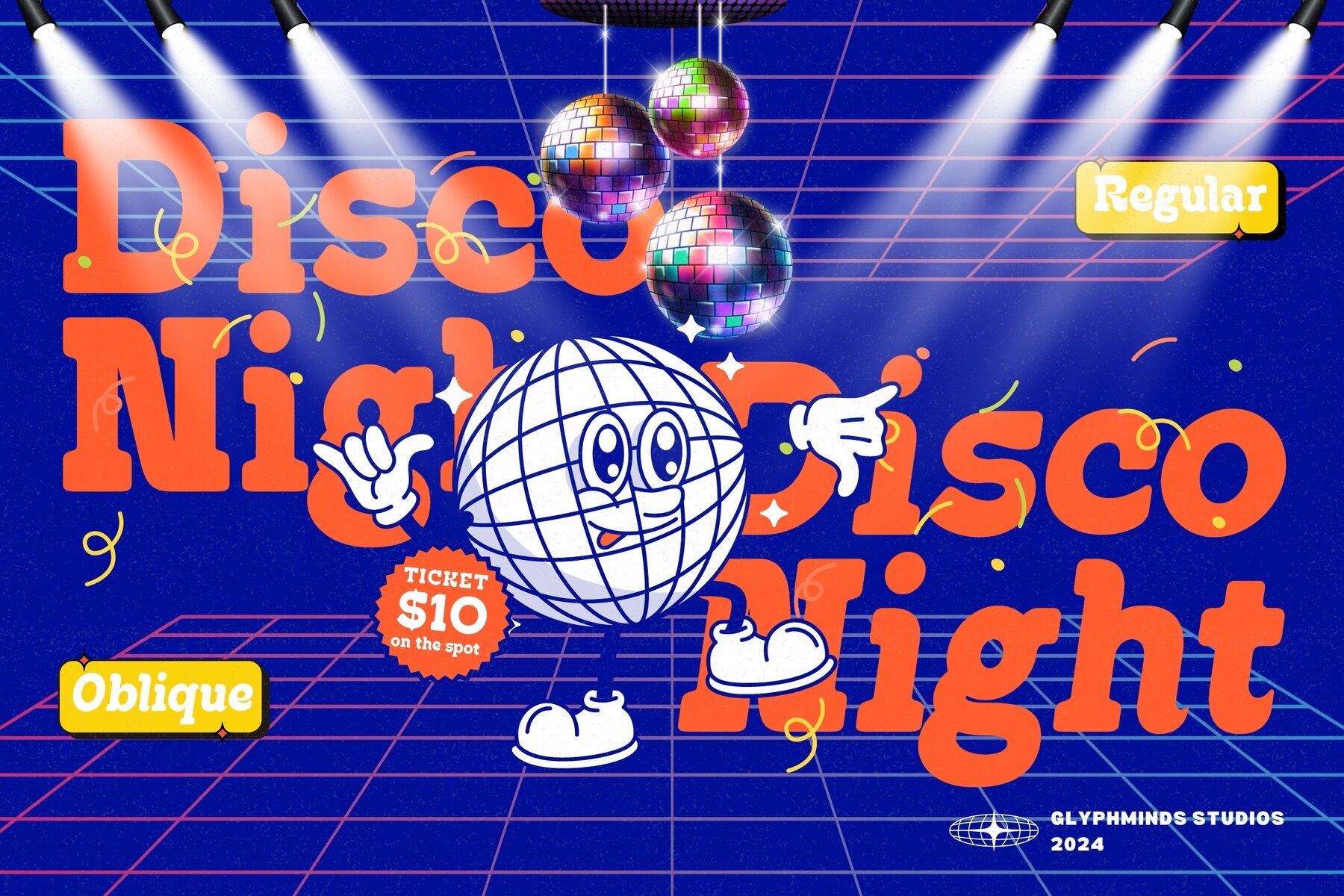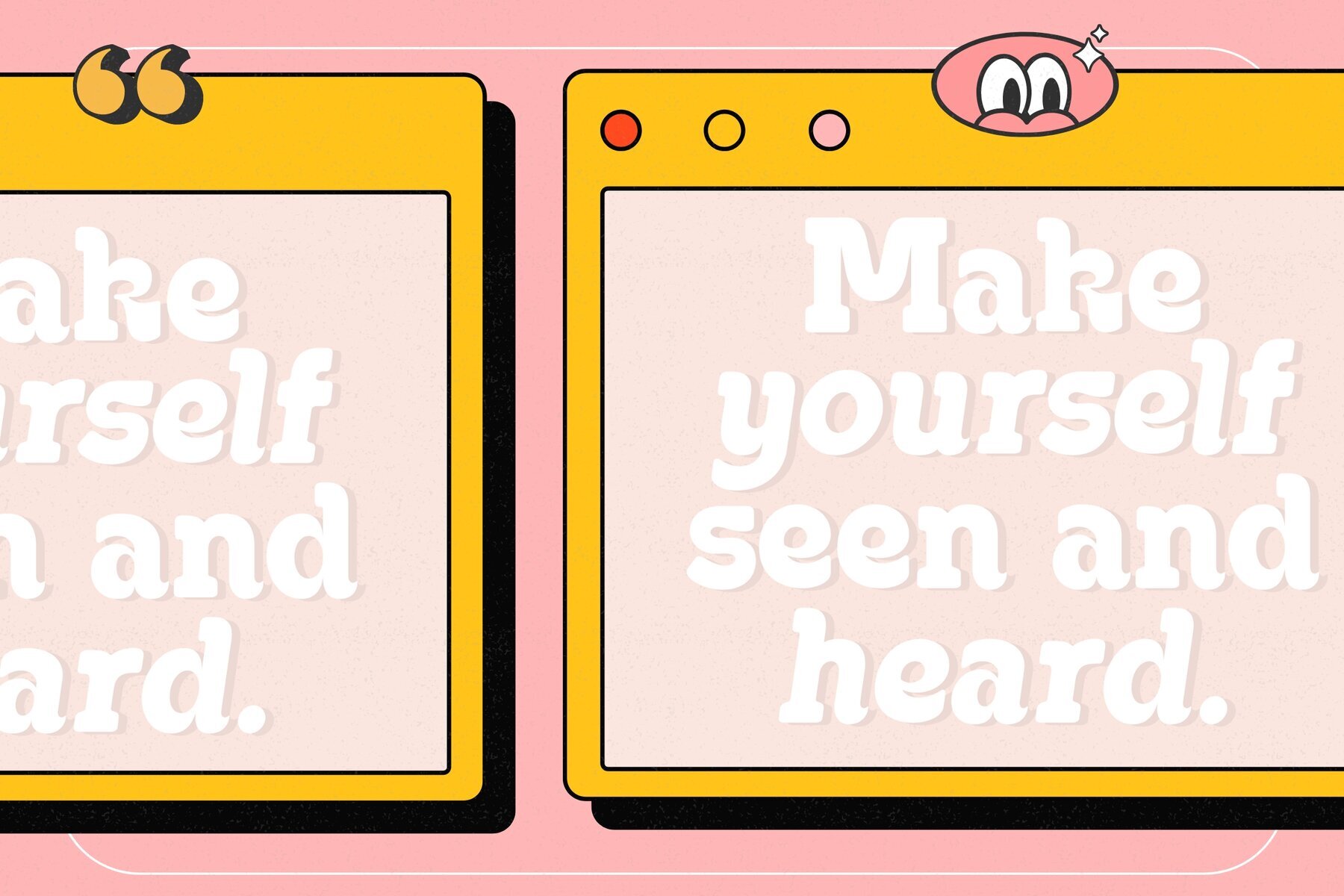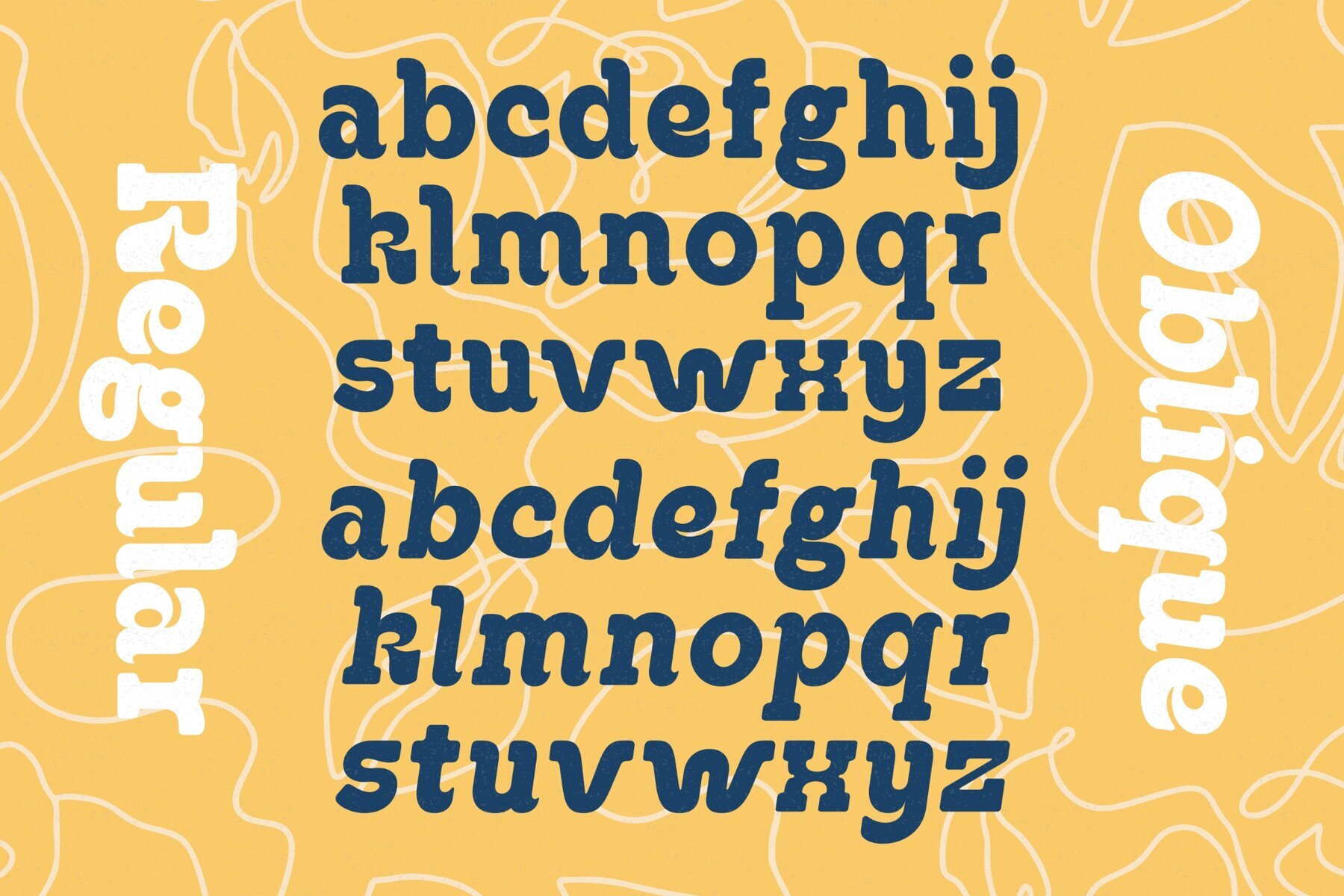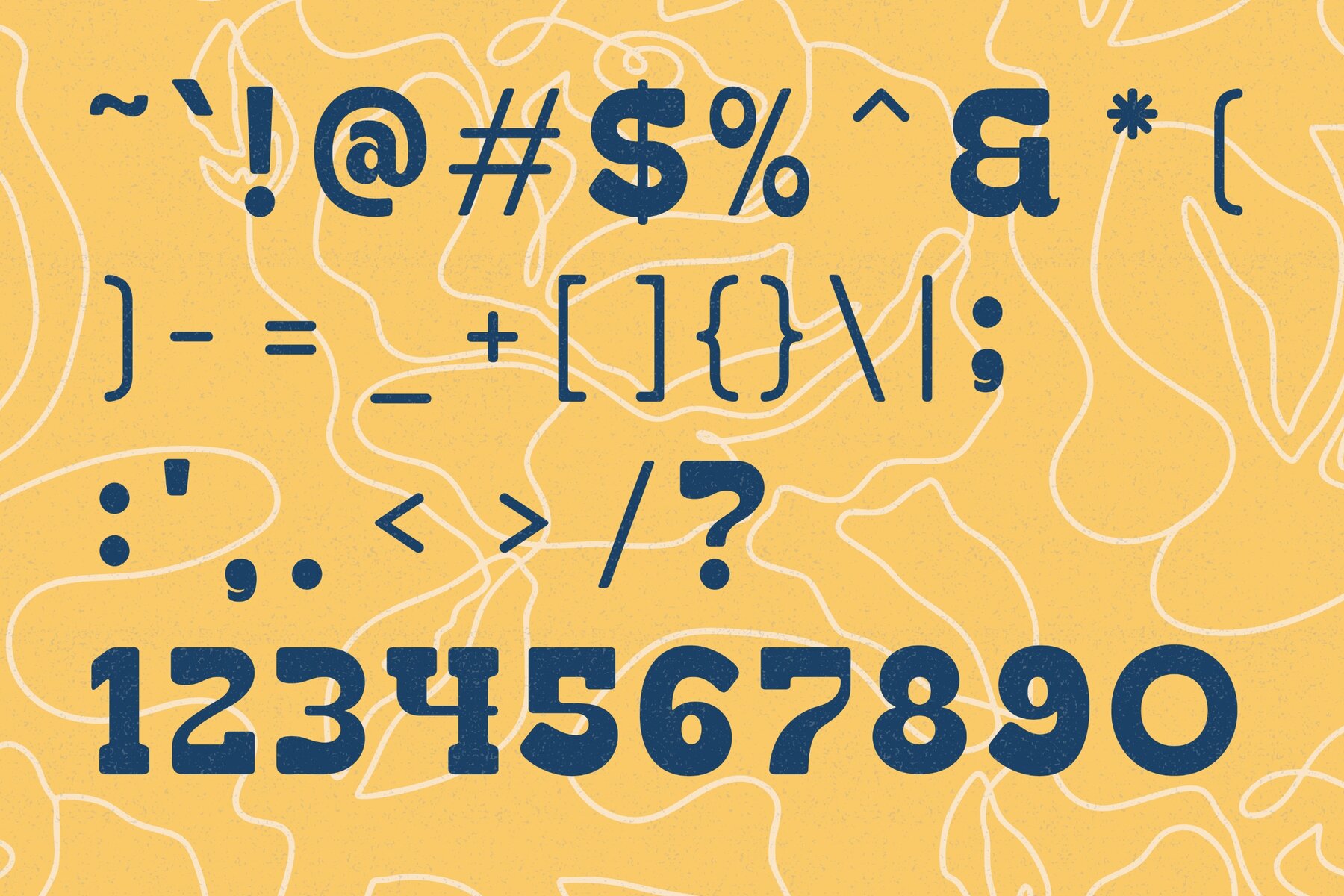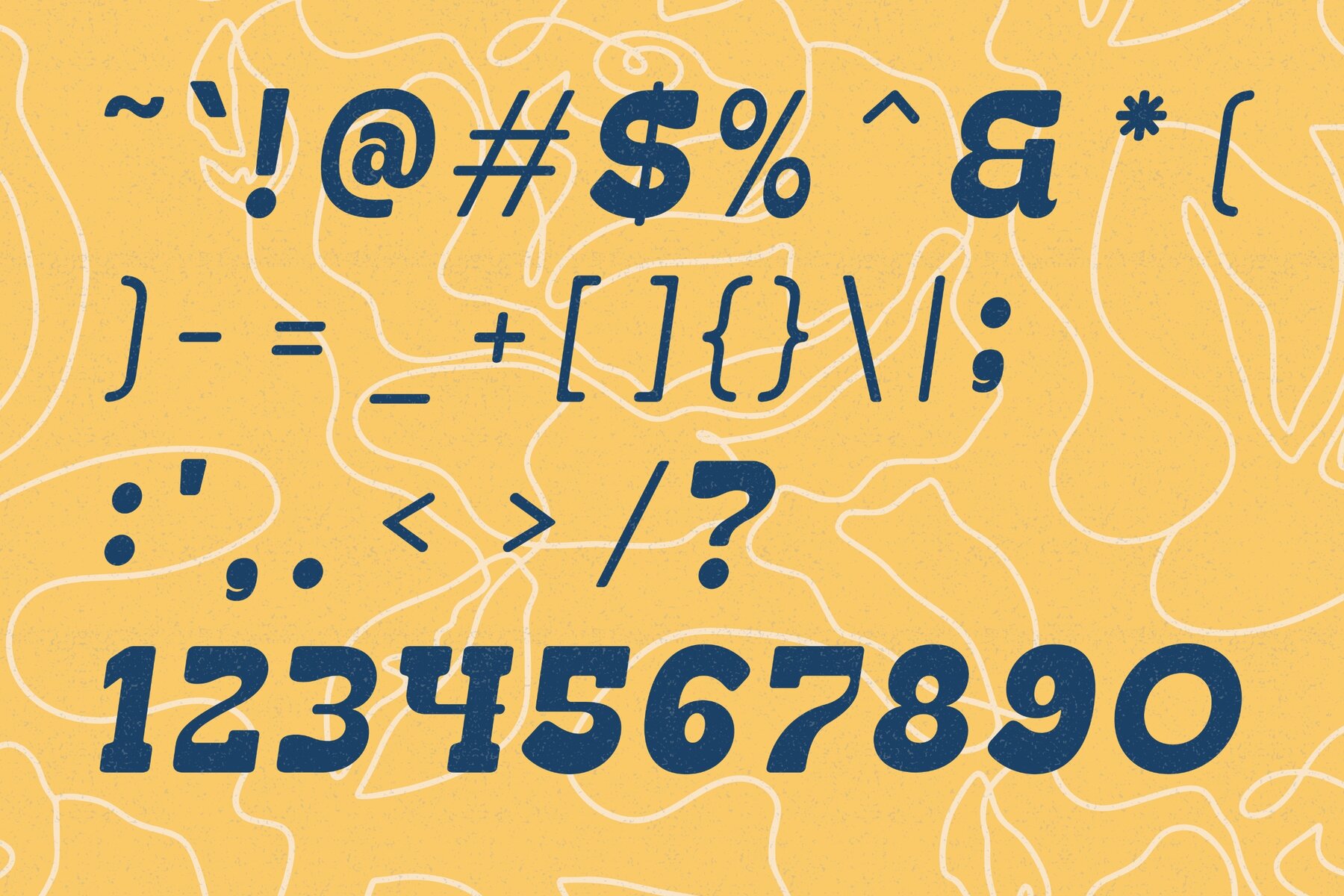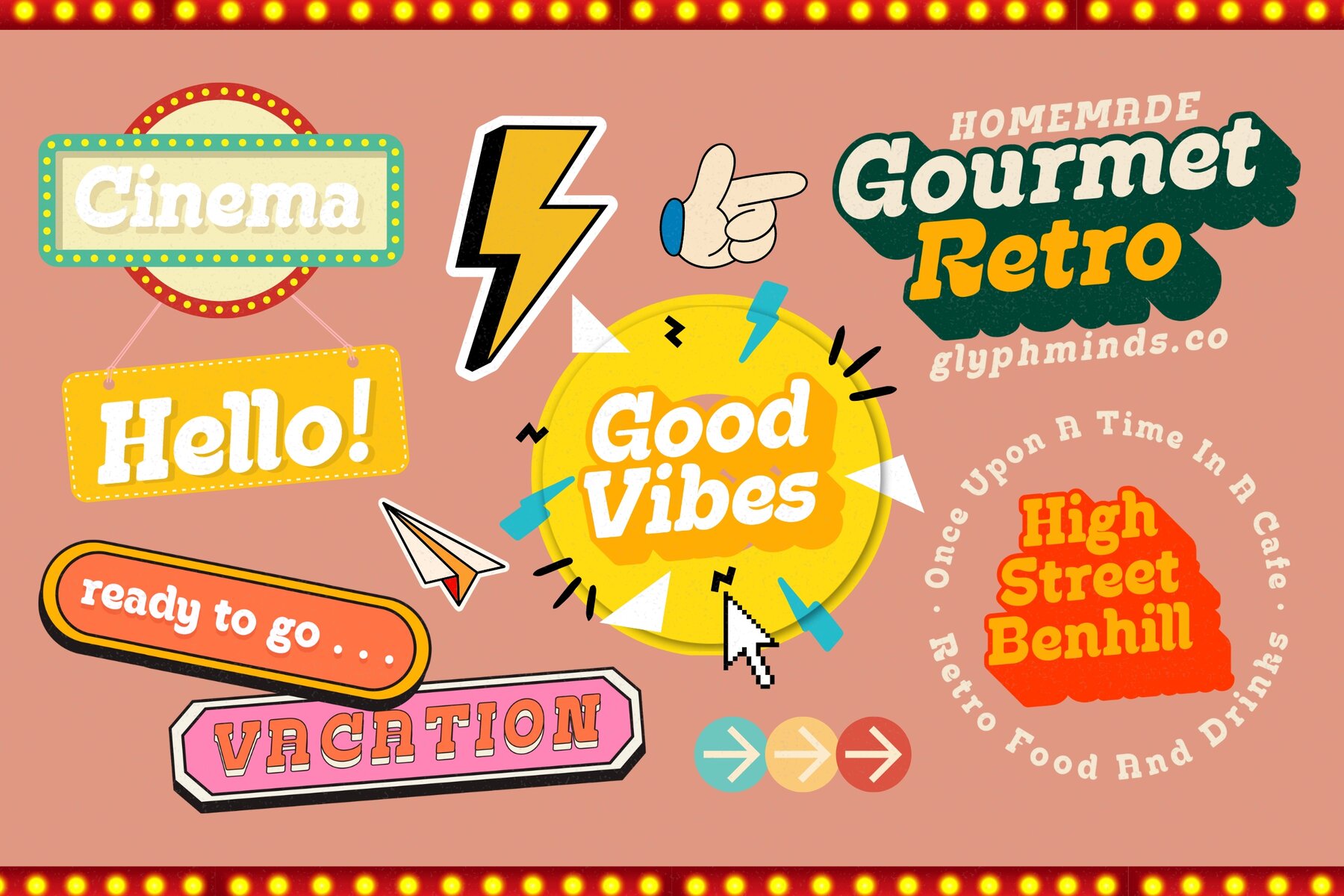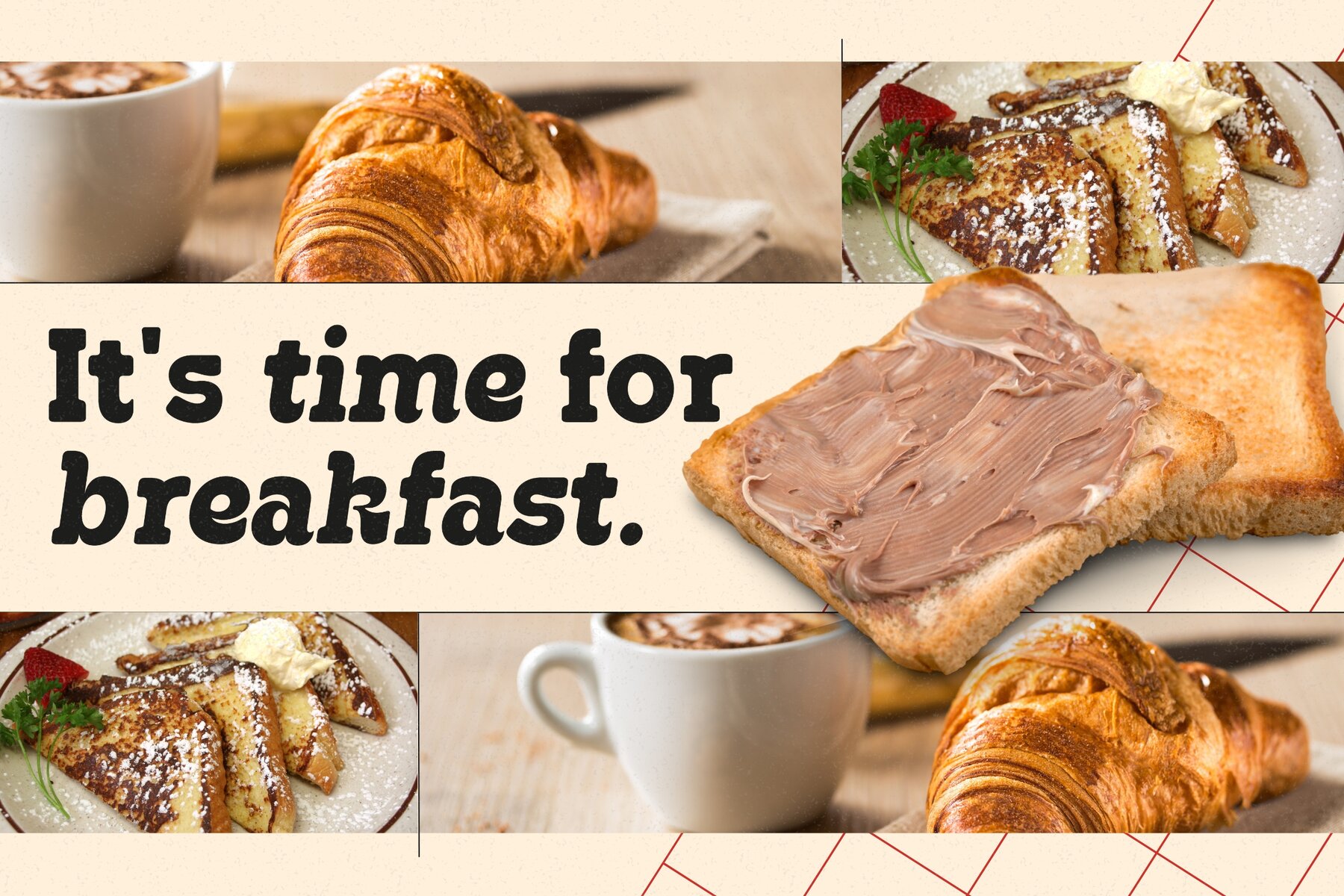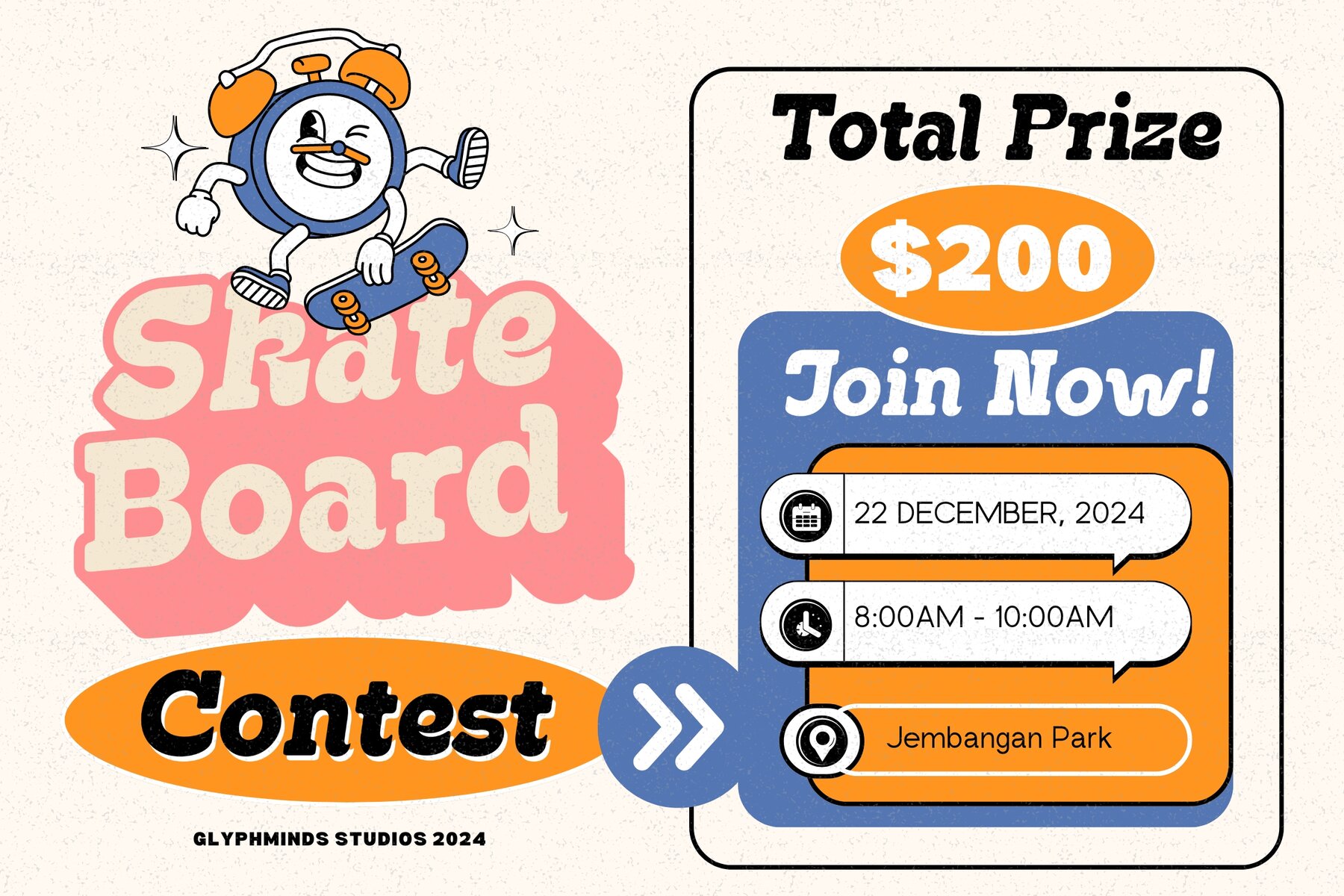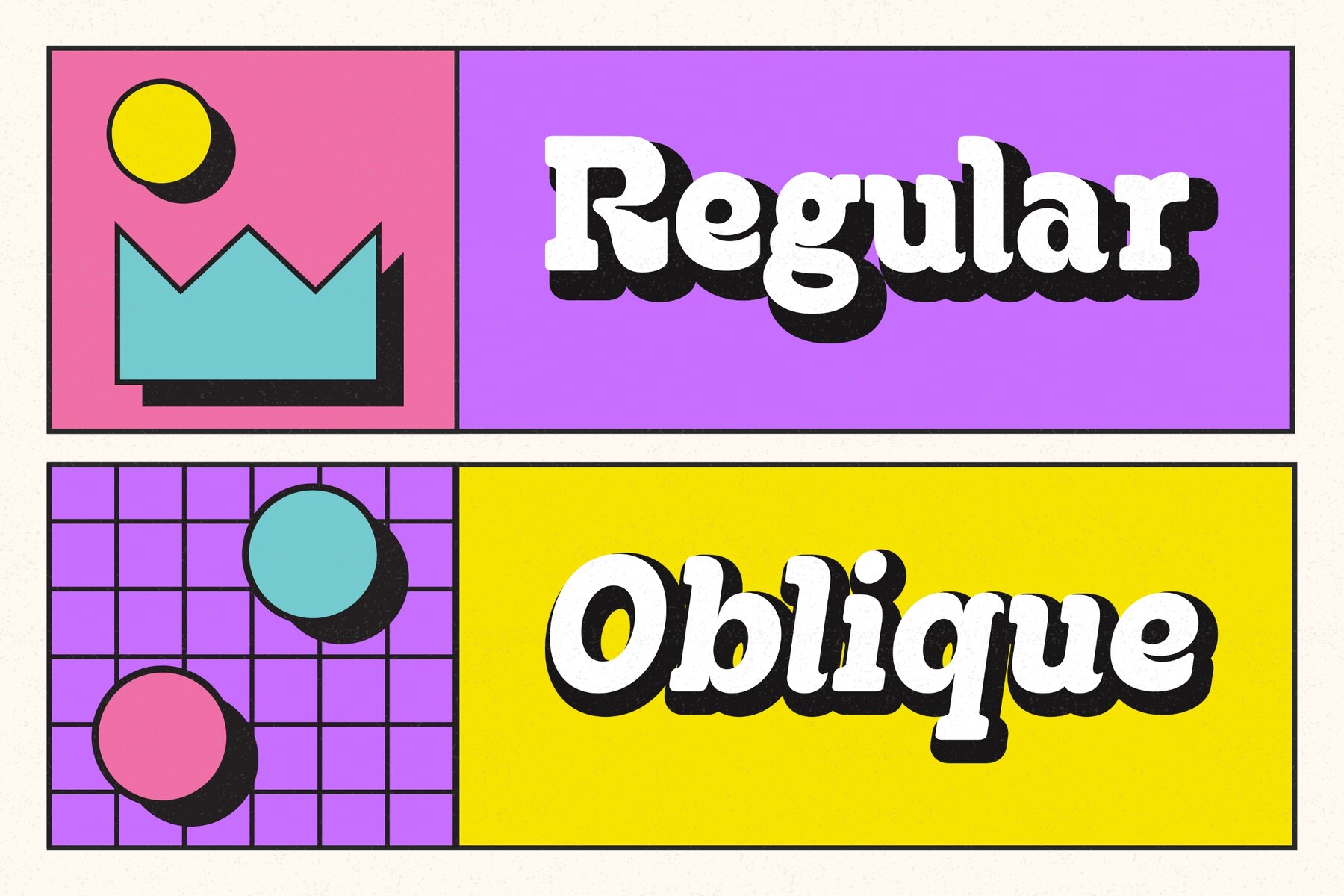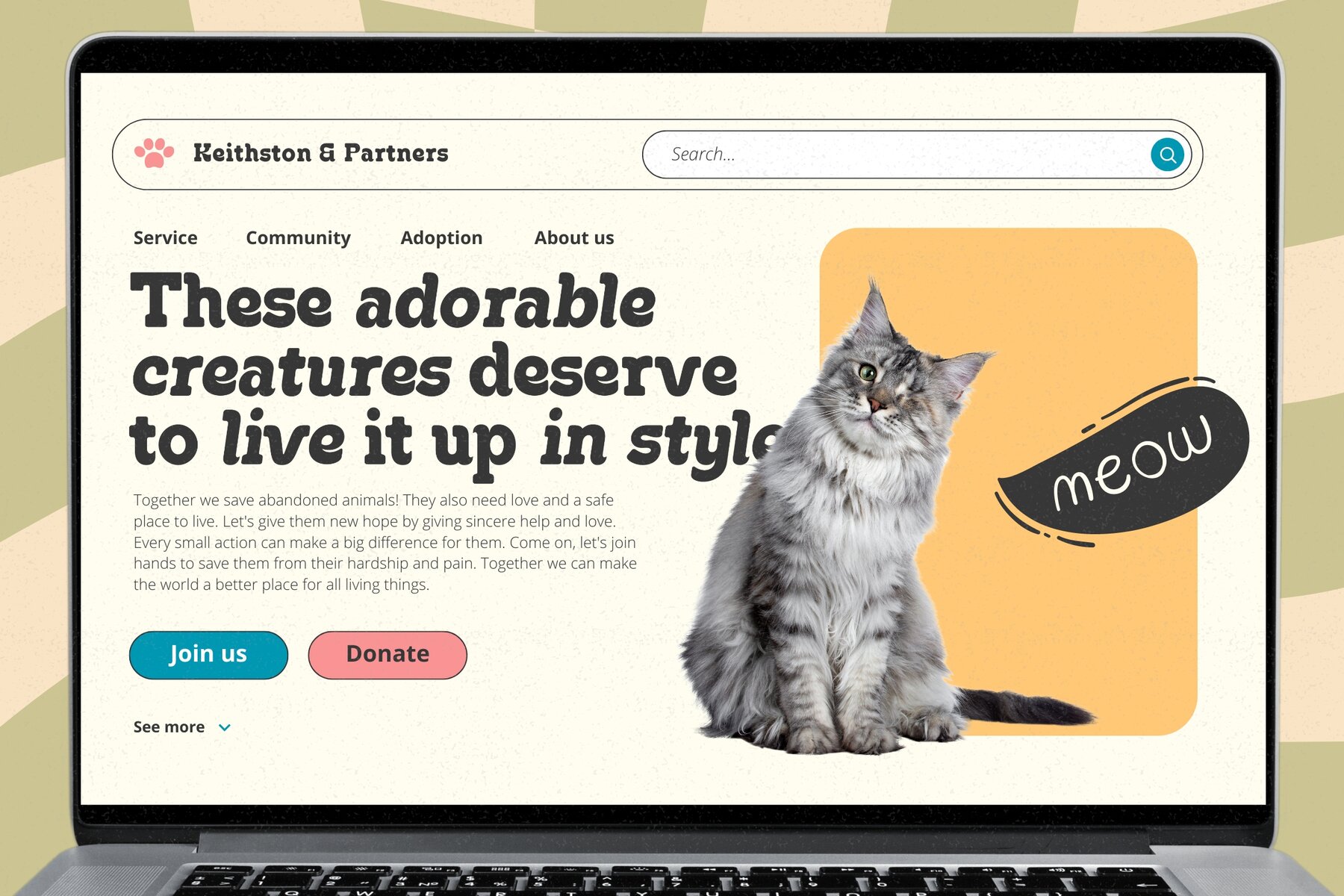
Jocked Font
Jocked is a vibrant retro display font that blends nostalgic charm with a modern edge. Its bold, dynamic design is perfect for adding playful style to any project. Ideal for those seeking a nostalgic vibe or looking to inject some retro fun, Jocked is a standout choice for creating engaging and lively designs.
This distinctive font comes with a full set of uppercase and lowercase letters, numerals, punctuation, and supports multiple languages. Whether you're working on a branding project, a poster, or any other creative venture, Jocked's unique flair will undoubtedly make your work pop. Step into the world of retro typography and let Jocked bring your designs to life.